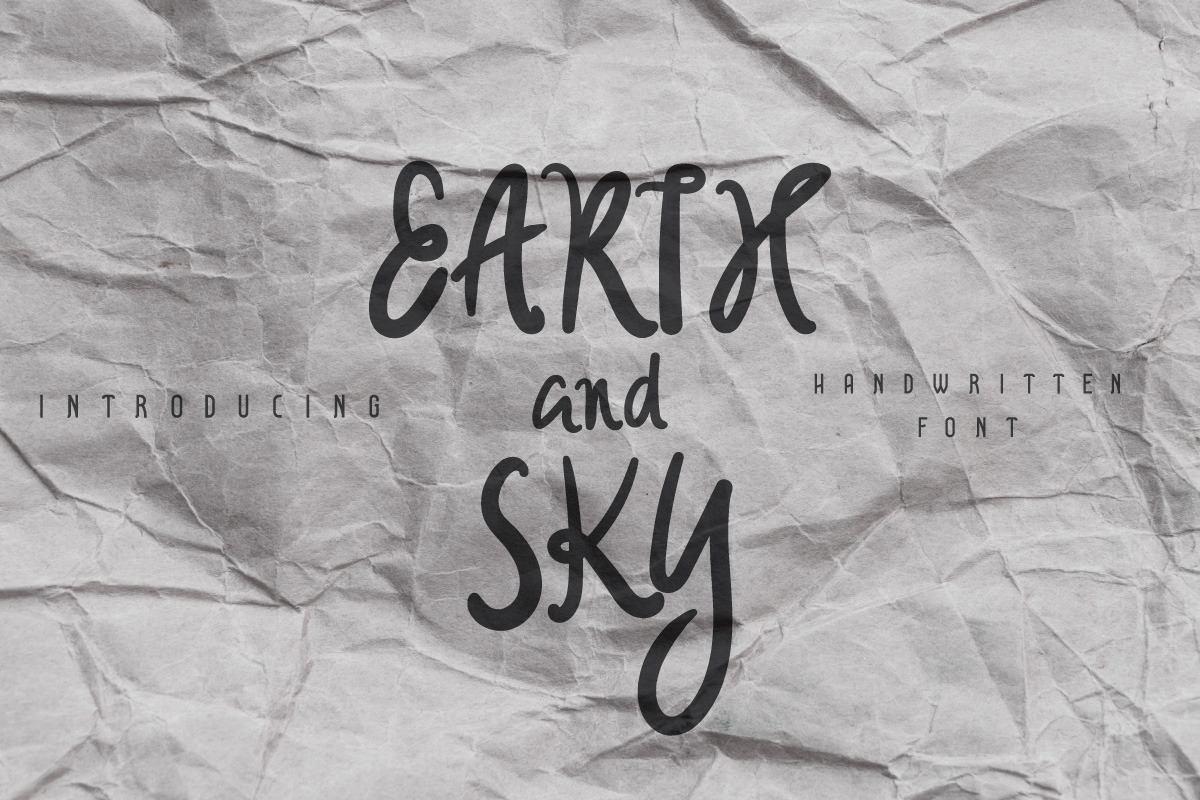
Earth and Sky Font Free Download is a cut-friendly typeface compatible with Cricut, Silhouette, SCAL, and Scan N Cut. Its thickness makes it an ideal font for creating cut files. You can download Earth and Sky Font Free Download for personal use to explore its features. For commercial applications, please ensure you purchase the appropriate license to comply with usage rights